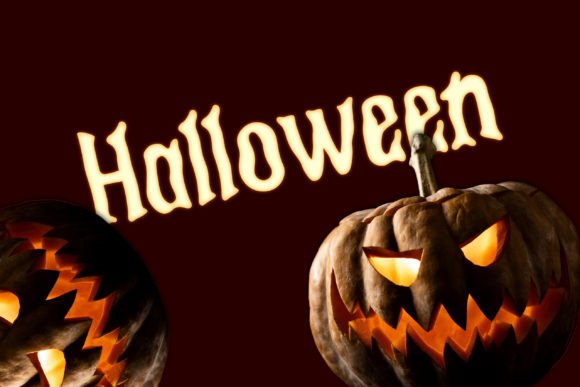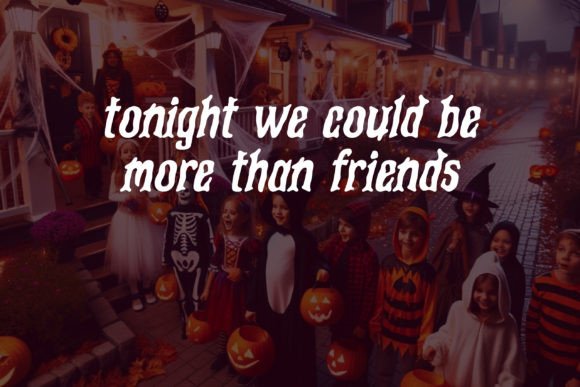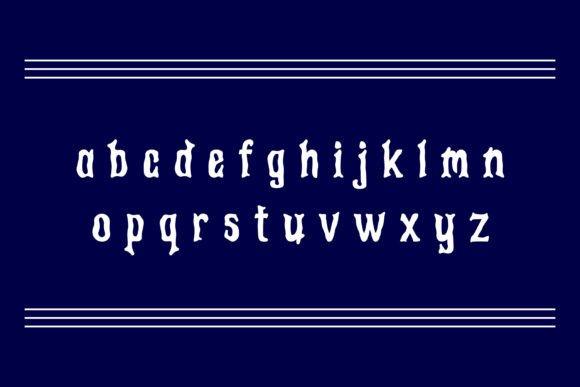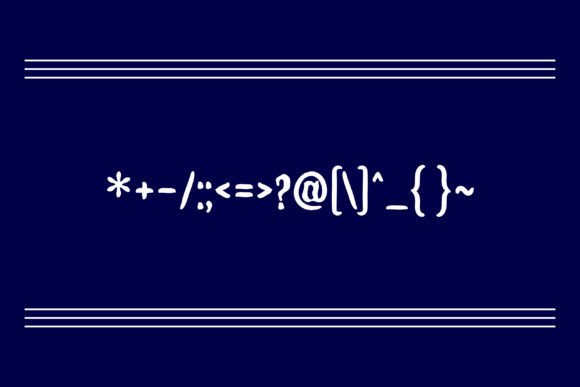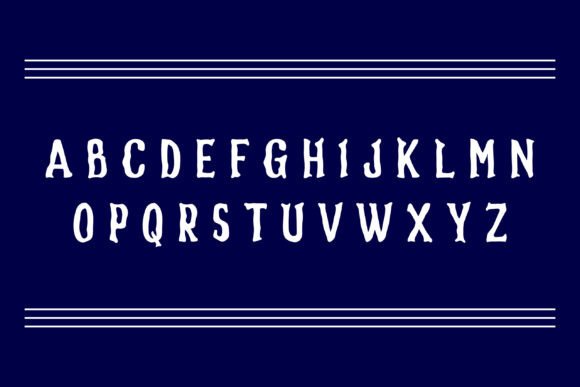
Get Ready to Spook Your Audience with the Perfect Font
You know that moment when you’re brainstorming a new project and the ideas just start pouring in? The thrill of creation, the rush of adrenaline – it’s exhilarating. And sometimes, it’s all about finding that one element that takes your design from ordinary to extraordinary. For those who love the spooky season, the Big Goosebumps Font is about to become your new best friend.
This stylish Gothic decorative font is more than just a pretty face – it’s a versatile tool that will help you create captivating Halloween-themed titles, eye-catching designs, and attention-grabbing posters. With its modern twist and diverse set of 96 distinctive glyphs, the Big Goosebumps Font is a valuable asset for designers looking to add some edge to their projects.
Big Goosebumps Font Key Features
- Font Family: Big Goosebumps is a display font, designed to evoke a sense of nostalgia and playfulness.
- Unique Characteristics: Big Goosebumps features a distinctive, hand-drawn feel with exaggerated letterforms and a bold, playful style, making it perfect for children’s book titles, magazines, and other youth-oriented designs.
Big Goosebumps Font Review
Overall, I’d say that Big Goosebumps Font is a unique and fun font that can add a playful touch to your designs. ✨ It’s perfect for creating a spooky or whimsical atmosphere, especially for projects related to Halloween or kids’ content.
- ✨ Distinctive and memorable design that grabs attention.
- ✨ Great for titles, headings, and other display text.
- ✨ Easy to read and recognize, even at smaller font sizes.
- ⚠️ Limited versatility – may not be suitable for all types of content or design projects.
- ⚠️ Not ideal for body text, as it can be too playful and distracting.
- ⚠️ May not be suitable for formal or professional designs.
In conclusion, Big Goosebumps Font is a fun and quirky addition to your design arsenal, but it’s essential to use it judiciously. It’s perfect for projects that require a playful or spooky touch, but may not be the best choice for more formal or professional designs.
The Big Goosebumps font is perfect for creating spooky, horror-themed designs, such as:
– Horror movie posters
– Halloween decorations
– Scary book covers
– Creepy typography art